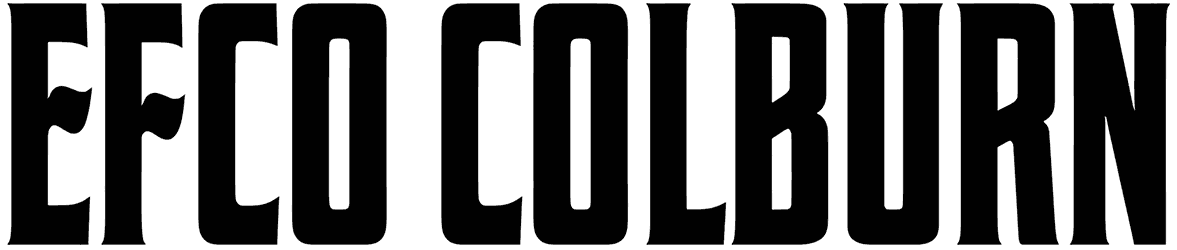
Efco Colburn Font
Efco Colburn font has that engraved vintage charm that makes a headline feel like it belongs on an old whiskey label, a dusty book cover, or a sign hanging above a shop with actual character. The decorative serif style brings plenty of heritage, but it still keeps the words solid enough for real branding work.
Use it for brewery labels, antique logos, bar menus, classic packaging, Western posters, badge designs, or heritage-style product tags. Pair this retro font with aged paper, copper foil, dark wood, or thin ornamental borders, and your layout starts looking properly collected over time.